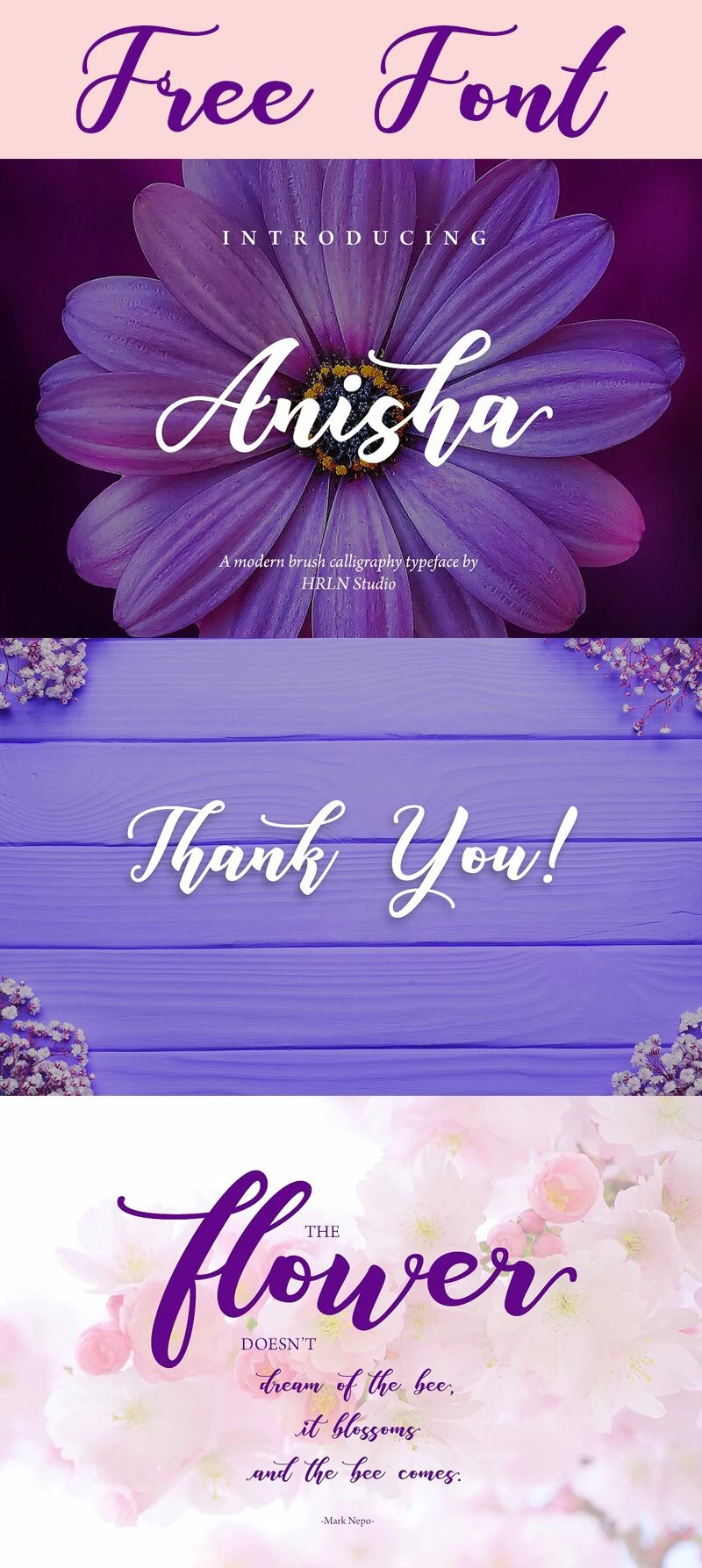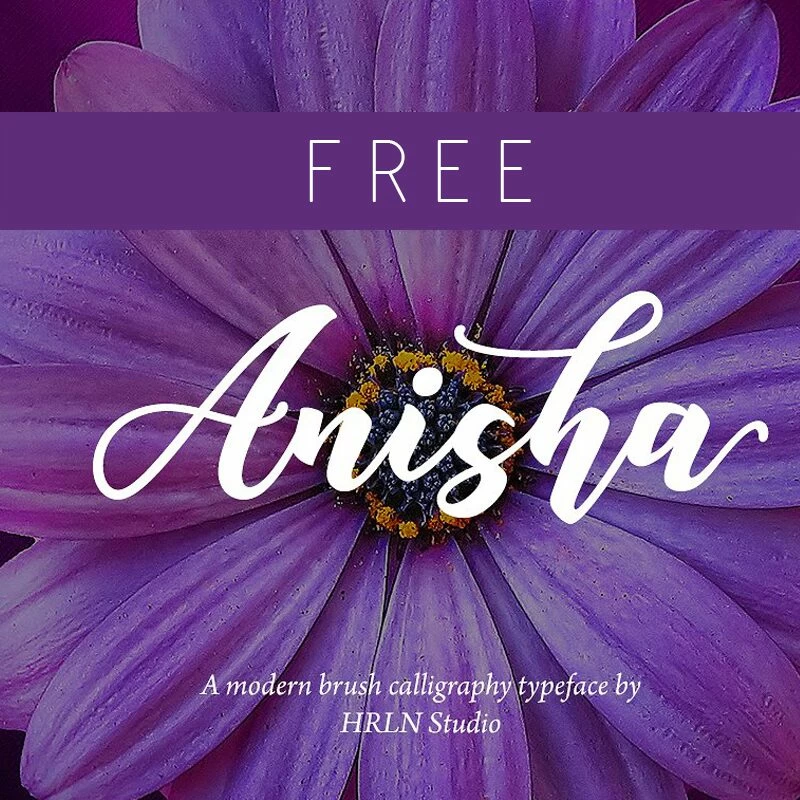
Free Anisha Font:
Today’s awesome freebie is a gorgeous font from HRLN called Anisha! It is a beautiful modern brush calligraphy font..suitable for logotype design, quotes, web design, poster, flyer, magazine, t-shirt, pillows, any craft and much more.